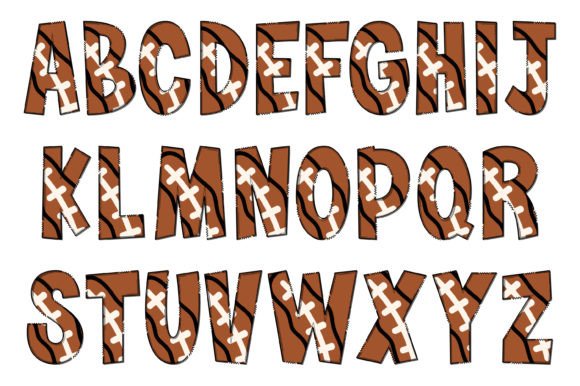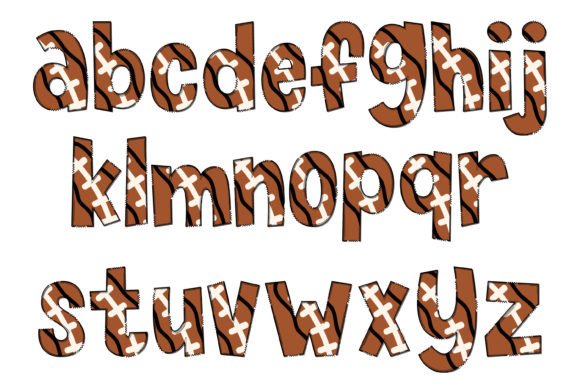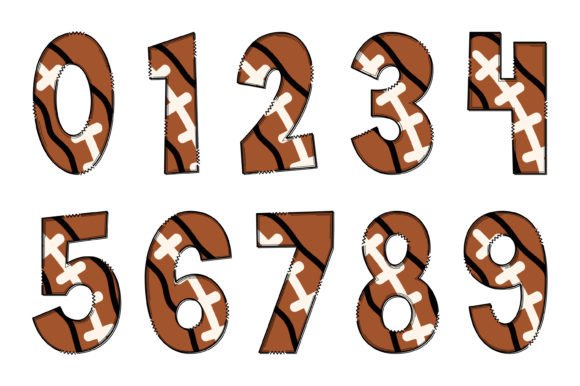
Exploring the World of Football Font: A Playful and Artistic Design Essential
When it comes to creating designs that exude a playful or artistic vibe, the right typography can make all the difference. This is where the Football Font comes into play – a delightful and whimsical typeface that’s perfect for a variety of creative projects. In this article, we’ll dive into the world of Football Font, exploring its uses, benefits, and technical details to help designers and crafters make the most of this fantastic font.
What is Football Font?
Football Font is a unique and colorful typeface designed to add a touch of playfulness and creativity to any design. Its whimsical nature makes it an excellent choice for projects that require a fun and artistic approach. Whether you’re working on a children’s book, poster, invitation, greeting card, or any other design that needs a dash of personality, Football Font is an excellent option to consider.
Uses of Football Font
This font is often used in designs that aim to convey a playful or artistic feel, such as:
- Children’s books: Football Font is perfect for kids’ books, as it creates an engaging and immersive reading experience. Its colorful and whimsical nature helps bring stories to life, making it easier for young readers to connect with the narrative.
- Posters: Add a pop of color and personality to your posters with Football Font. Its playful vibe makes it ideal for promoting events, products, or services in a fun and creative way.
- Invitations: Make your invitations stand out with Football Font. Its artistic feel adds a touch of elegance and sophistication, perfect for weddings, birthday parties, or other special occasions.
- Greeting cards: Create personalized and eye-catching greeting cards with Football Font. Its whimsical nature makes it perfect for birthdays, holidays, or just to say hello.
Tips for Using Football Font
To make the most of Football Font, here are some tips to keep in mind:
- Experiment with colors: Football Font is a color font, so don’t be afraid to try out different colors and combinations to find the perfect look for your design.
- Mix and match: Combine Football Font with other fonts to create a unique and visually appealing design.
- Pay attention to spacing: As with any font, make sure to adjust the spacing and kerning to ensure your text looks professional and easy to read.
Football Font is a fantastic addition to any designer’s toolkit, offering a playful and artistic approach to typography. Its versatility and compatibility with various software make it an excellent choice for a wide range of creative projects. By understanding the uses, benefits, and technical details of Football Font, designers and crafters can unlock its full potential and create stunning designs that capture the imagination of their audience.
Whether you’re a seasoned designer or just starting out, Football Font is definitely worth exploring. So why not give it a try and see how this fantastic font can elevate your designs to the next level?